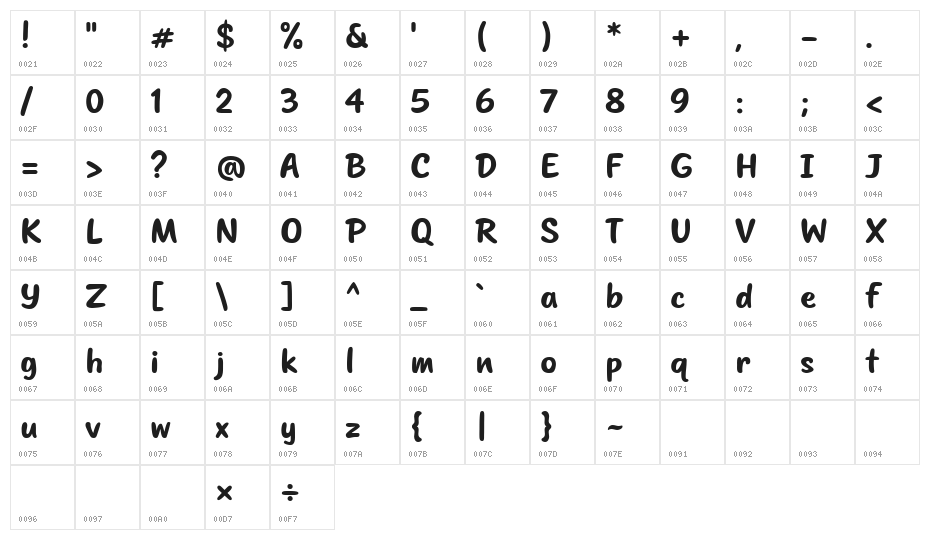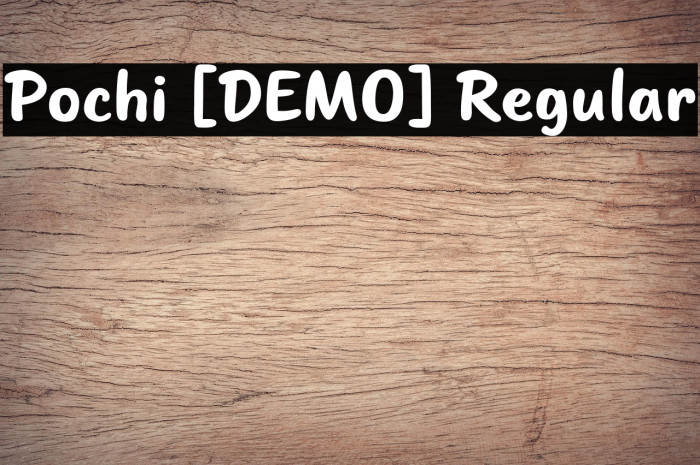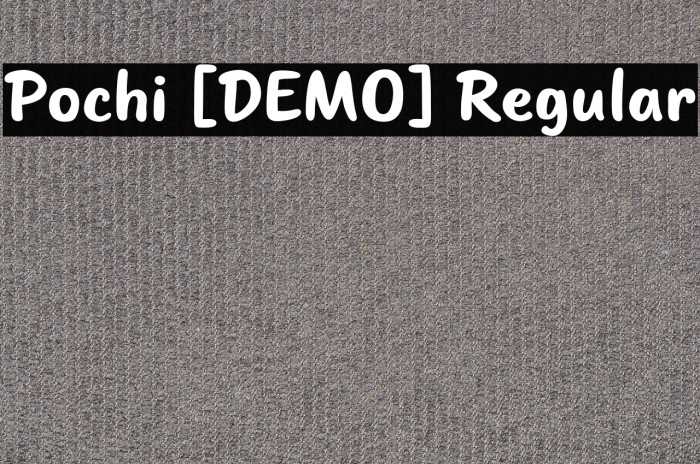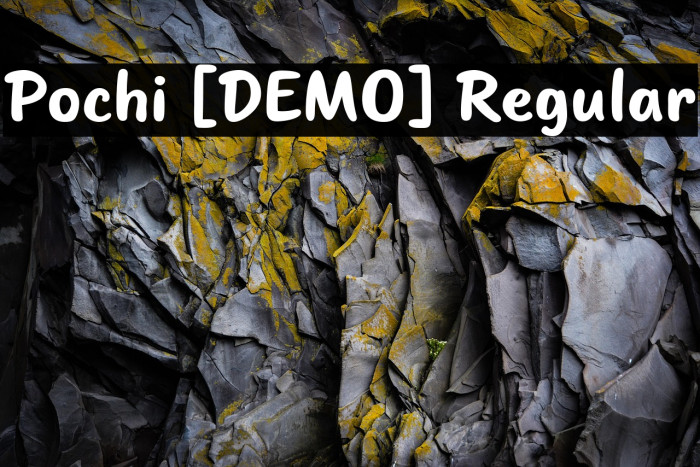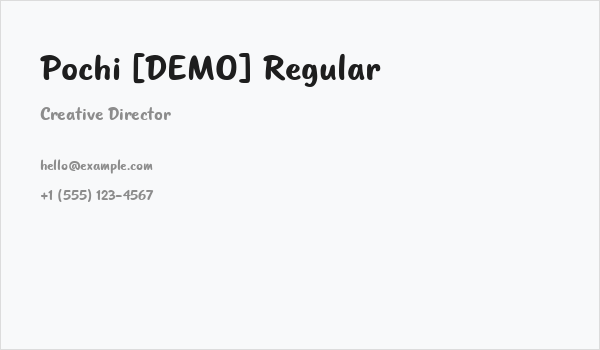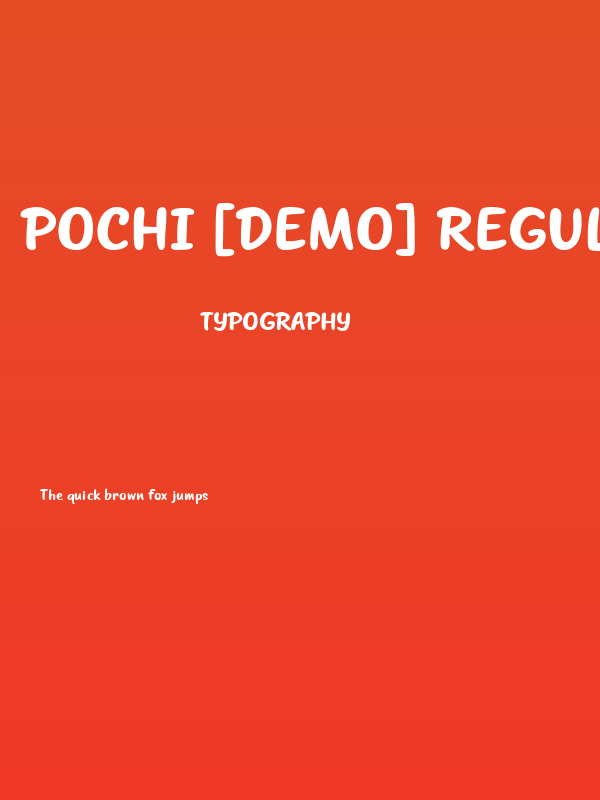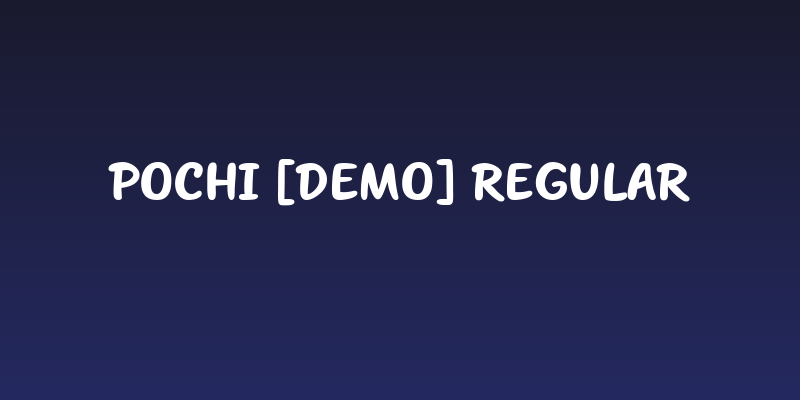
Pochi [DEMO] Regular Font
Pochi [DEMO] Regular Description
This playful and rounded font exudes a friendly and approachable vibe, making it ideal for casual and fun design projects. The characters are bold with a smooth, flowing style that adds a touch of whimsy. The uppercase and lowercase letters maintain a consistent weight, offering a harmonious look. The numerals and special characters are equally well-crafted, ensuring versatility across various applications. Its bold strokes and rounded edges contribute to a modern yet informal aesthetic, perfect for engaging audiences in a lighthearted manner.
| Use Case | Headlines, Logos, Casual Text |
| Proposed Projects | Ideal for children's books, playful branding, casual invitations, and social media graphics. |